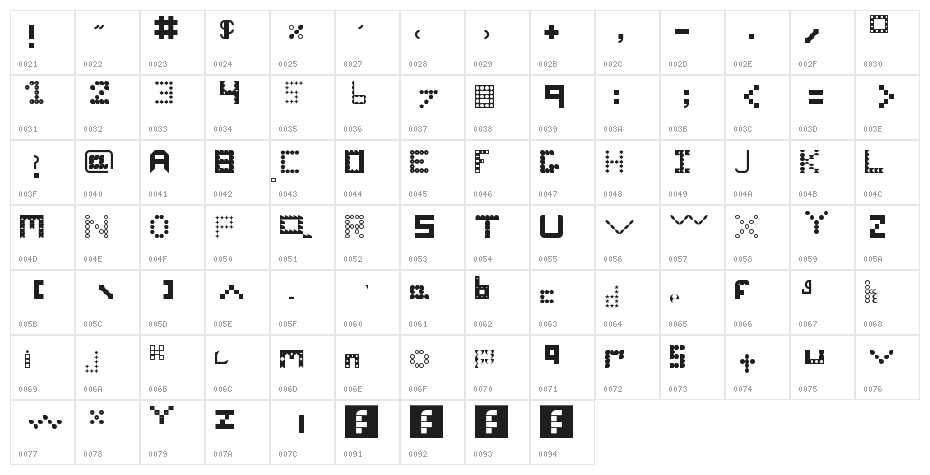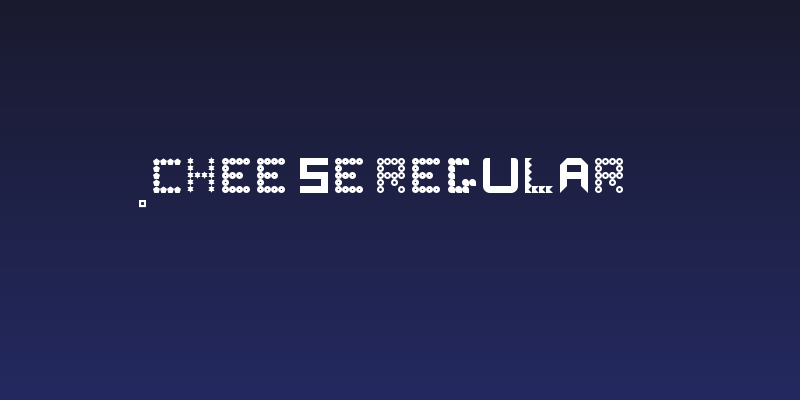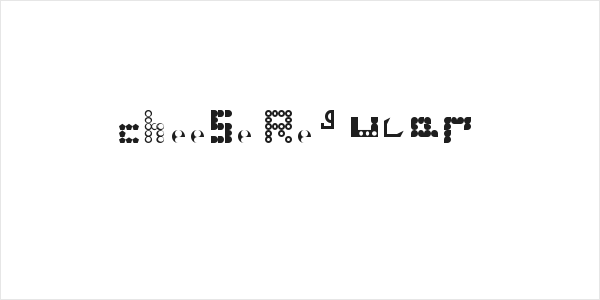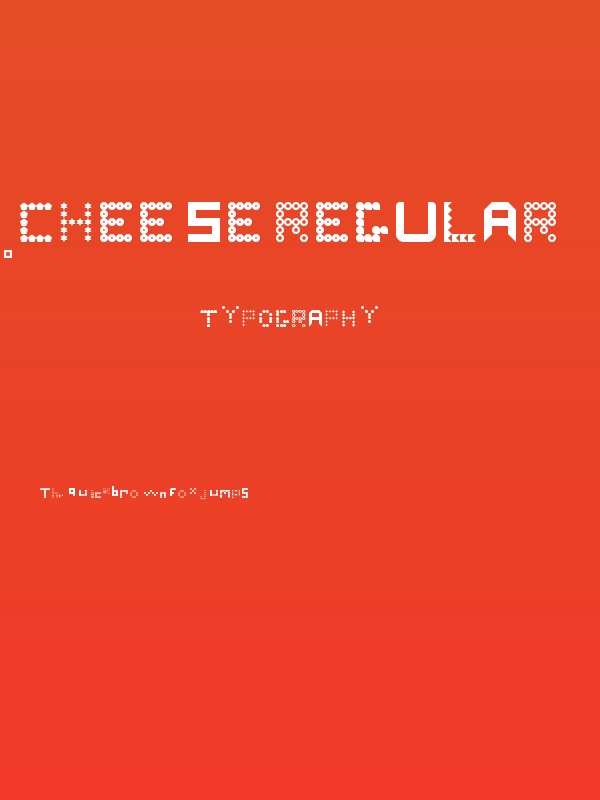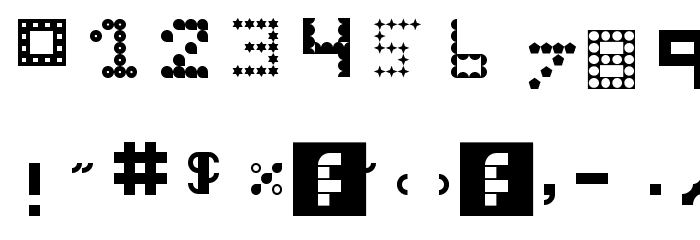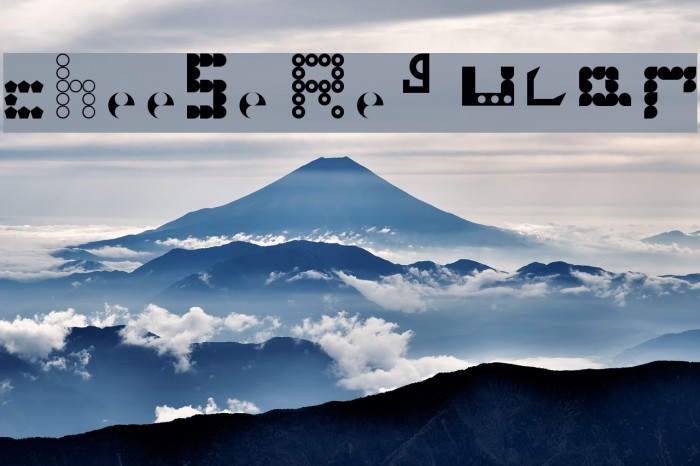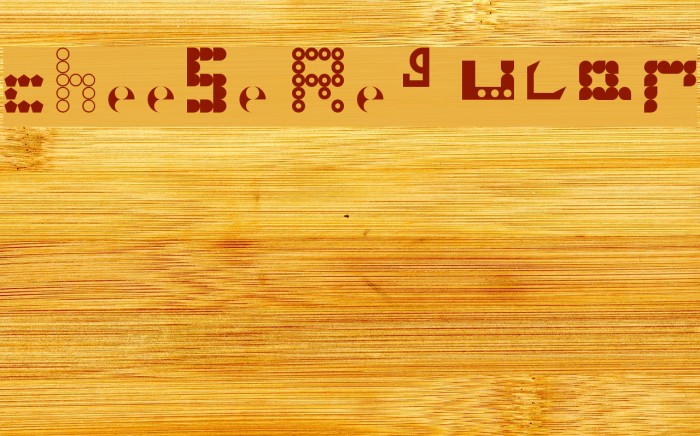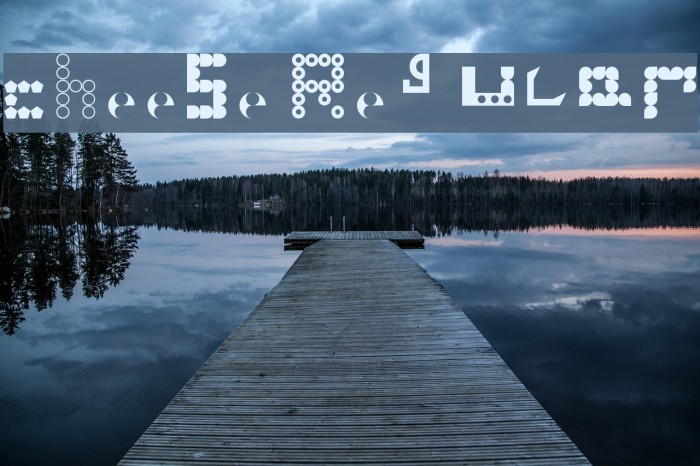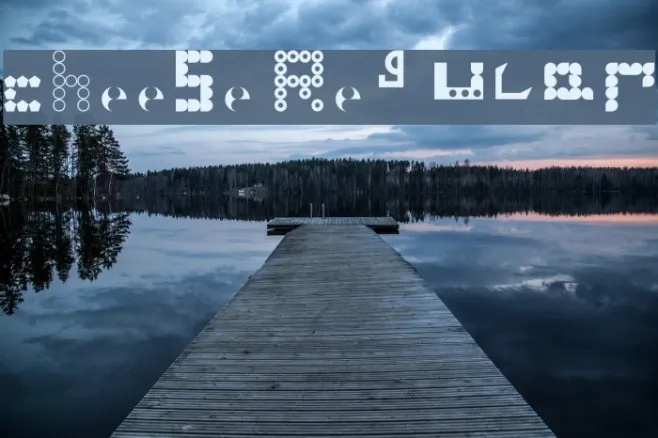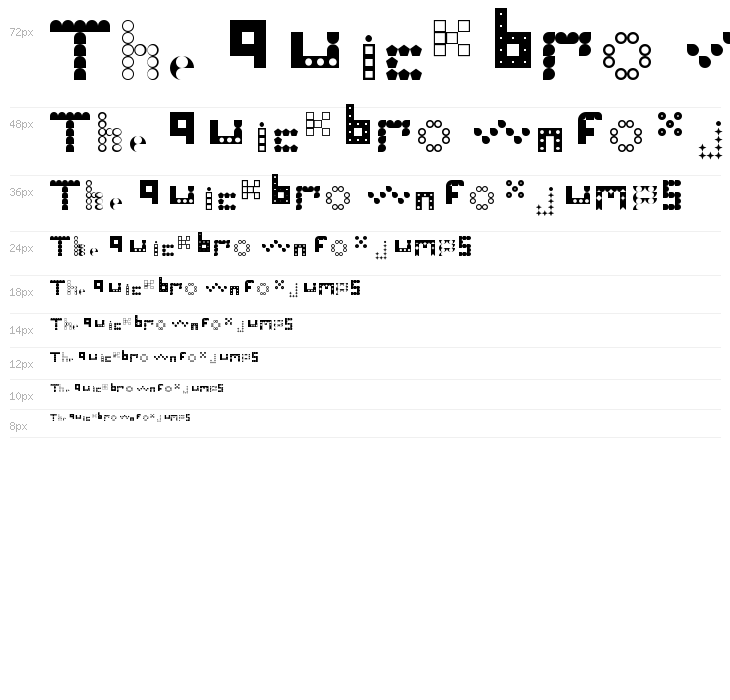
cheese Regular Font
cheese Regular Description
This font features a playful and decorative style, characterized by its use of geometric shapes and patterns within each character. The uppercase letters are bold and striking, with some incorporating dots, stars, and other shapes to create a unique visual effect. The lowercase letters maintain this playful theme, offering a mix of solid and patterned designs. Numbers and special characters follow suit, adding to the font's whimsical and artistic appeal. This font is ideal for creative projects that require a fun and eye-catching typeface.
| Proposed Projects | Ideal for children's books, playful branding, posters, and creative invitations. |